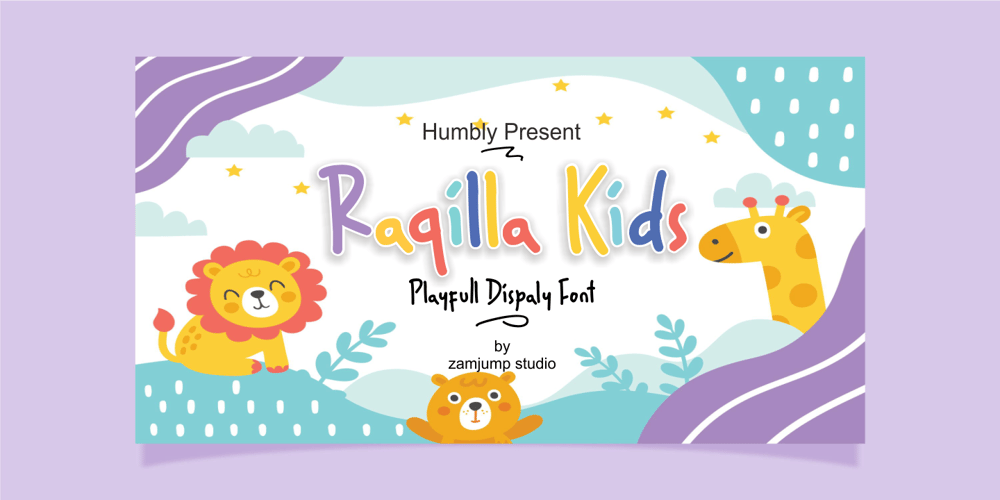
Raqilla Kids
Raqilla Kids font
Raqilla Kids Font Family was designed by Zamjump and published by Zamjump. Raqilla Kids contains 1 styles and family package options. Introducing Raqilla Kids – Playful Display FontRaqilla Kids is a display font with a cute character. This is a kids themed font look, inspired by children’s writing in general, with a shape that looks irregular but is very distinctive, these characters will add a warm touch to any look. Add this beautiful display font to your every creative idea and see how it makes them stand out!FEATURES- Uppercase – Lowercase – Numbering – Punctuations- Ligature- Alternate- Swash- Multilingual Support- Works on PC or Mac- Simple Installation- Support Adobe Illustrator, Adobe Photoshop, Corel Draw, also works on Microsoft WordThanks